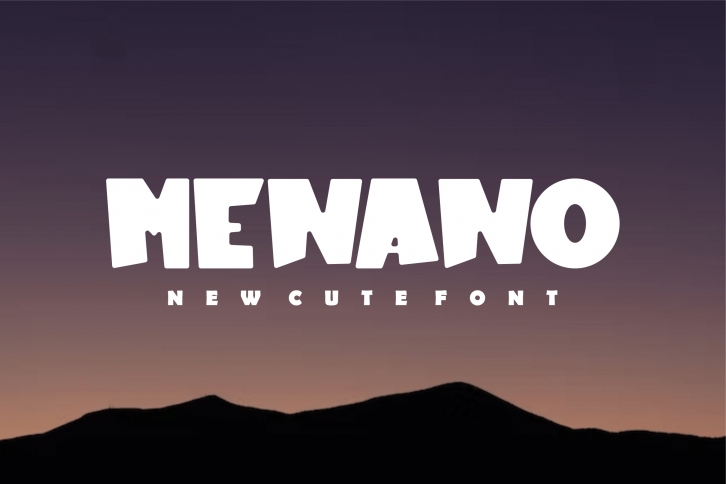
Menano is a chubby display font that feels beautiful, classy, fun, and modern. This font is perfectly suited for a wide variety of projects, such as signature, stationery, logo, wedding, typography quotes, magazine or book covers, website headers, clothing, branding, packaging design, and more.